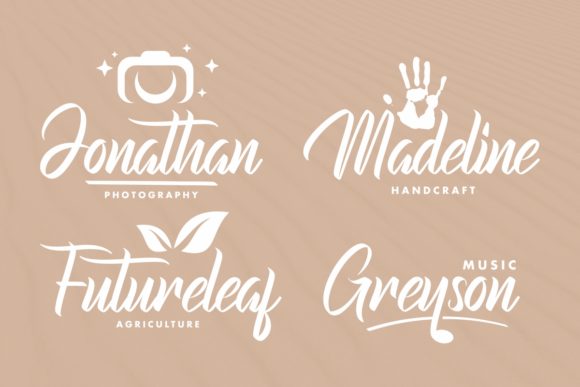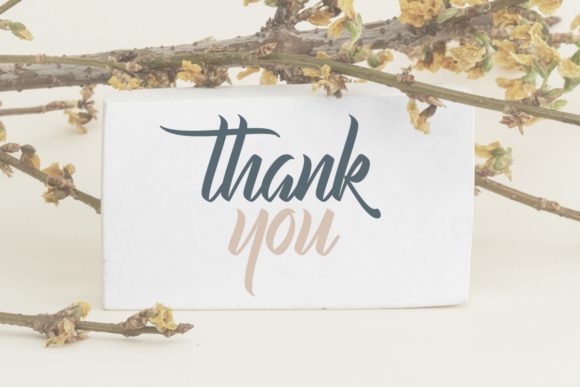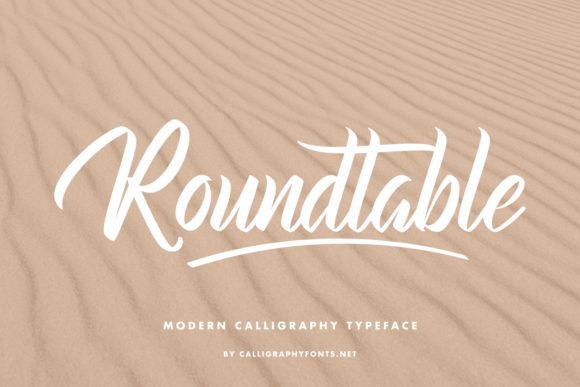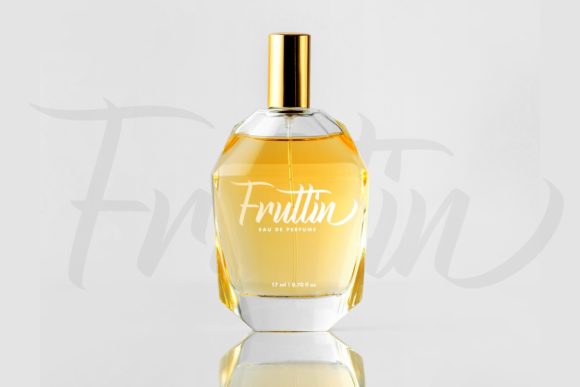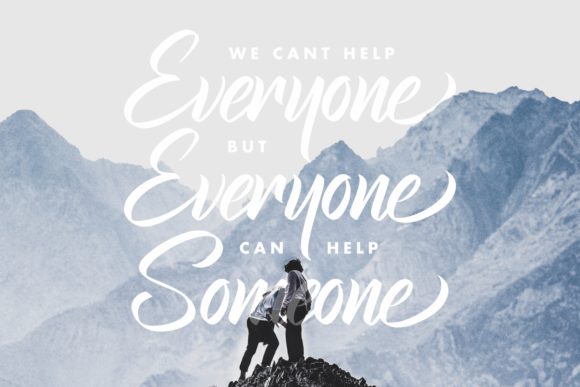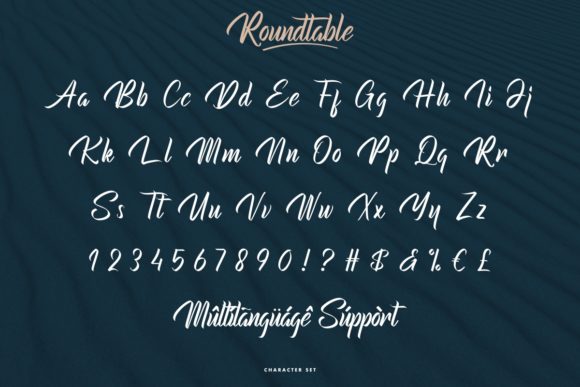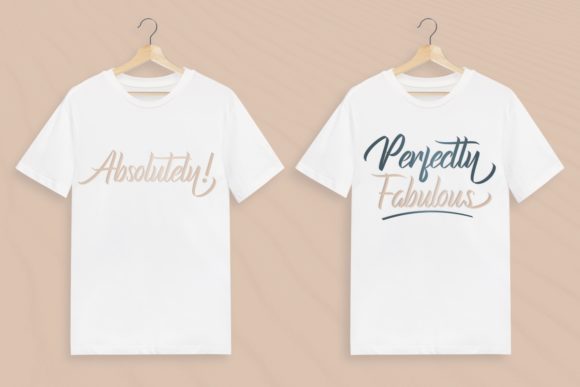
About Roundtable Font
Roundtable is a modern brush handwritten font. It is great for a wide range of projects, such as: branding, logo, stationery, business card, signage, flyer, brochure etc.This font is PUA encoded which means you can access all of the glyphs and swashes with ease!